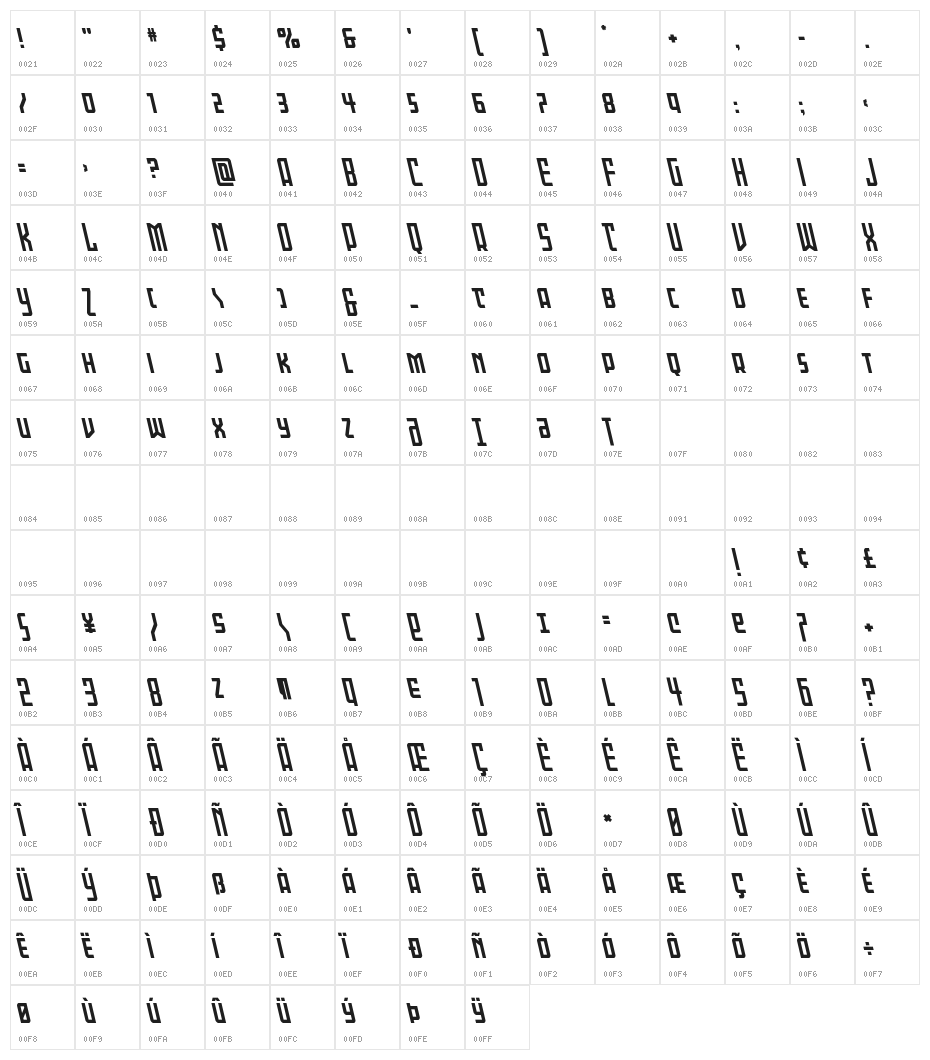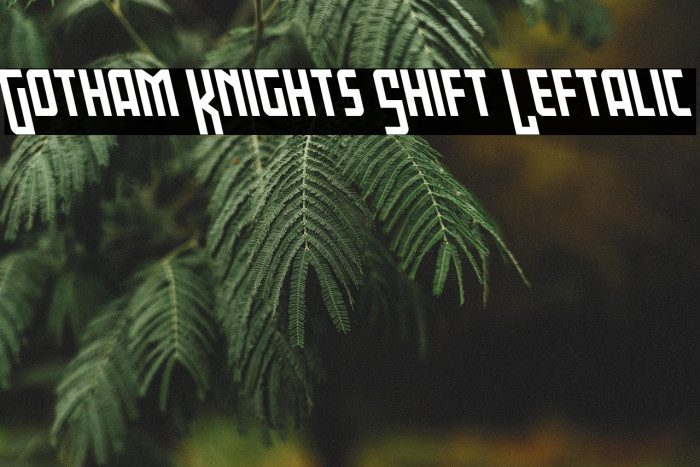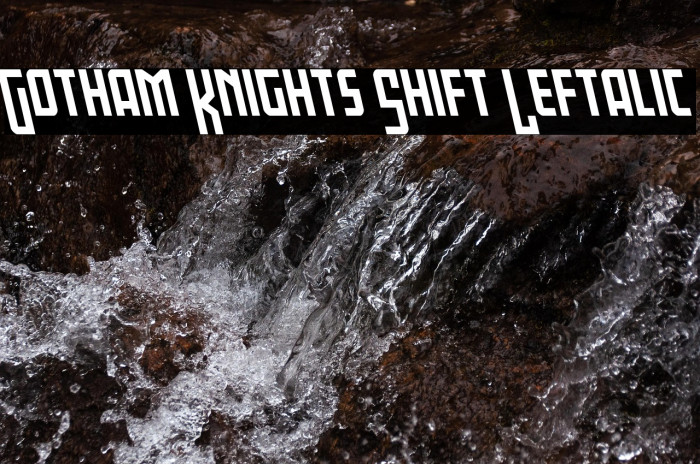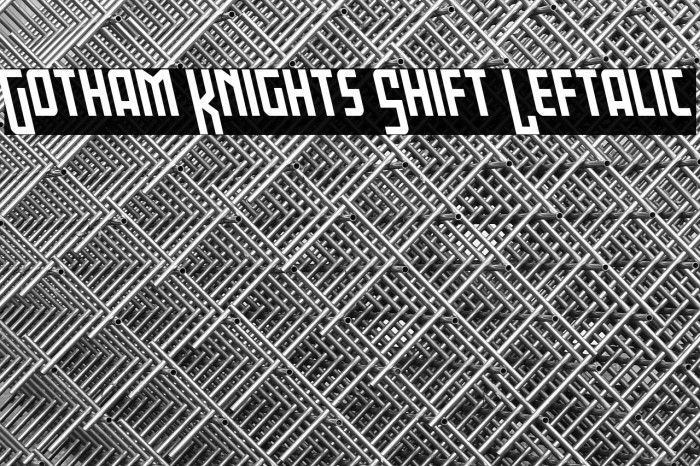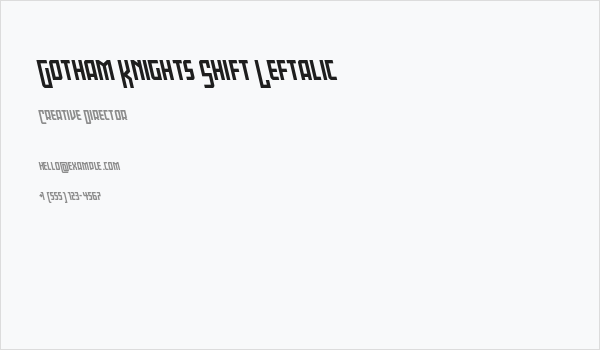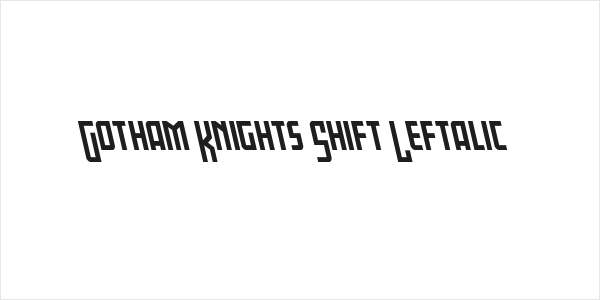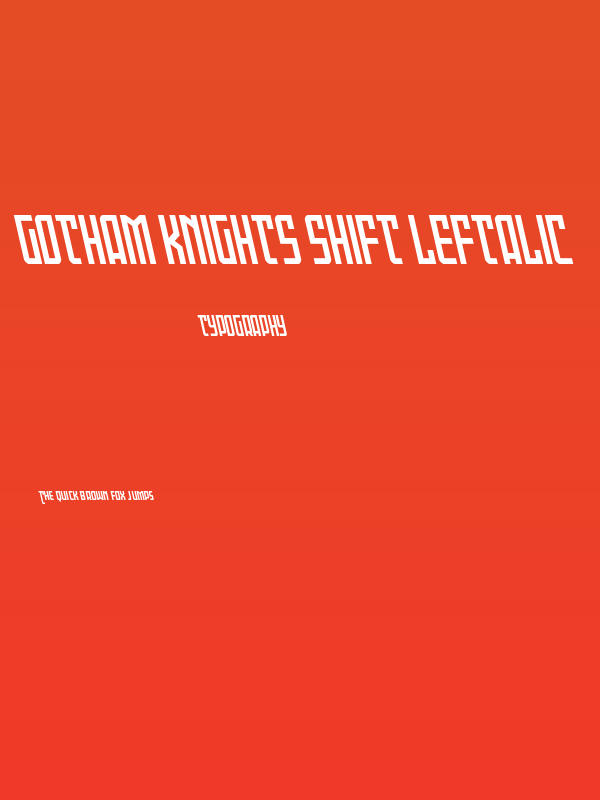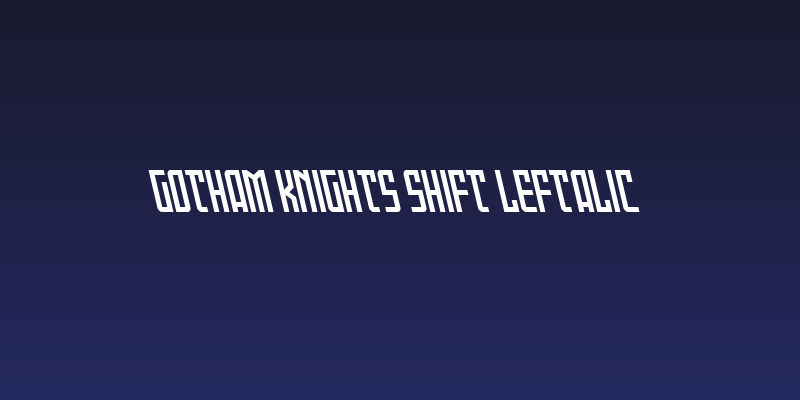
Gotham Knights Shift Leftalic Font
Gotham Knights Shift Leftalic Description
This font features a bold and angular design with a distinct slant to the left, giving it a dynamic and modern appearance. The characters are uniformly thick, providing a strong visual impact. The uppercase letters are particularly striking, with sharp edges and a geometric structure that conveys a sense of strength and stability. The numbers and special characters maintain this bold style, ensuring consistency across all elements. The font's unique slant and boldness make it ideal for attention-grabbing headlines and titles.
| Proposed Projects | Ideal for use in video game graphics, movie posters, sports branding, and dynamic advertising campaigns. |